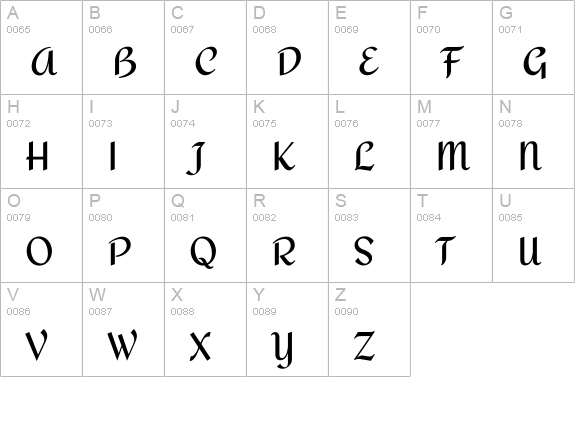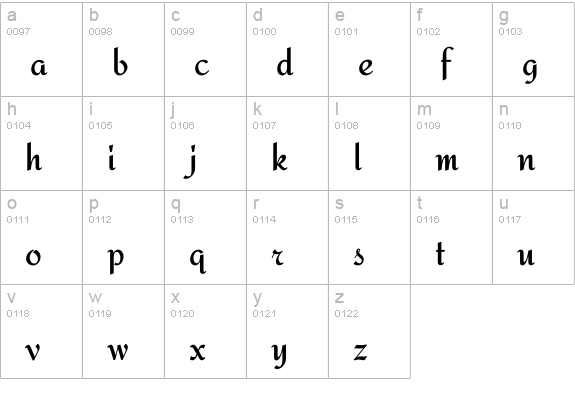
Redressed font is a captivating and versatile typeface that effortlessly combines elegance with a touch of playfulness. This font is the perfect choice for those seeking a visually striking design that stands out from the crowd. Its carefully crafted letterforms exude a sense of refined sophistication, making it ideal for a wide range of creative projects. With its unique and eye-catching appearance, Redressed font adds a distinctive flair to any text-based design. Whether you're designing a logo, creating a poster, or crafting a website, this font will undoubtedly leave a lasting impression on your audience. Its intricate details and balanced proportions make it a true work of art. One of the best aspects of Redressed font is that it is completely free to download at FontsMarket.com. This means that designers and creatives of all levels can access this exceptional typeface without any cost. By offering this font for free, FontsMarket.com aims to empower and inspire designers to explore their creativity without any limitations. Redressed font is a testament to the power of typography in capturing attention and expressing individuality. Its graceful curves, fluid lines, and subtle embellishments make it a versatile choice for both formal and informal projects. Whether you're aiming for a refined and elegant look or a more playful and whimsical vibe, this font has got you covered. So why not give Redressed font a try? Download it for free at FontsMarket.com and let your creativity flourish. Whether you're a professional designer or simply someone looking to add a touch of style to your personal projects, this font is guaranteed to elevate your designs to new heights. Embrace the beauty and versatility of Redressed font and unlock a world of endless possibilities in your typographic endeavors.